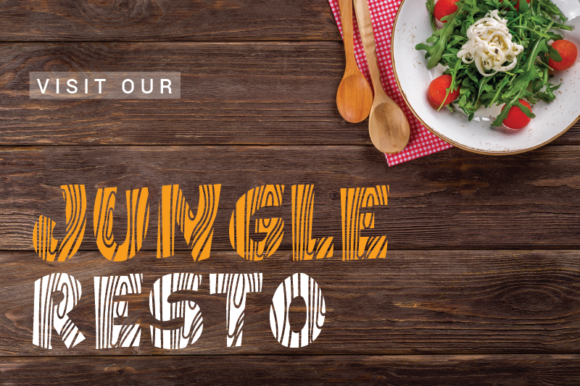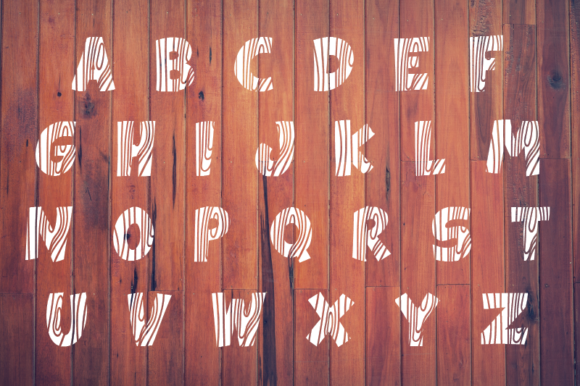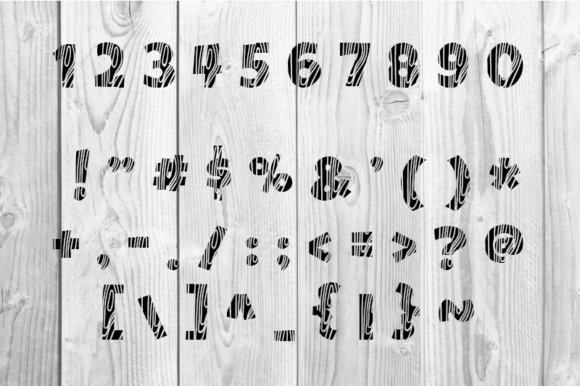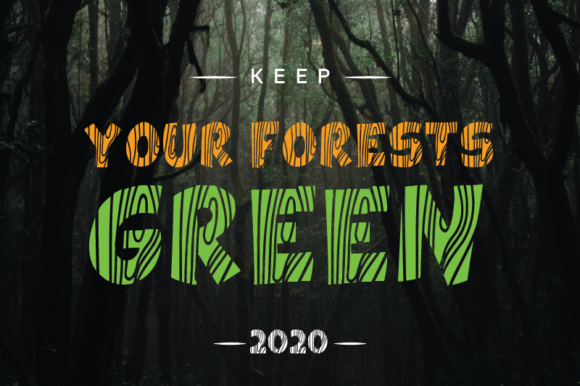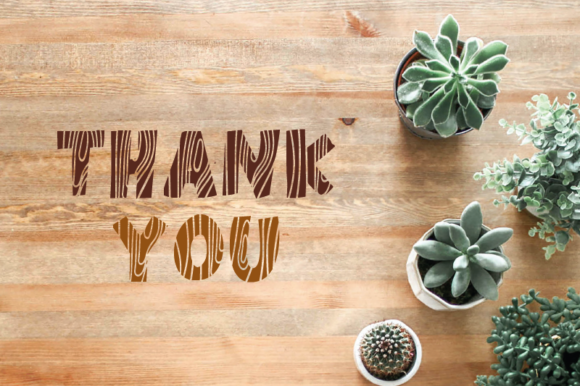
Discover the Charm of Forest Wood Font: Elevate Your Designs with a Touch of Nature
Are you tired of using the same old fonts in your designs? Look no further than Forest Wood Font, a unique and exquisite display font that’s sure to become your new favorite. With its perfect blend of classic dingbats influences and modern freshness, Forest Wood Font is the ideal choice for designers and crafters looking to add a touch of nature to their projects.
The Story Behind Forest Wood Font
Forest Wood Font is a masterfully designed display font that boasts a distinctive and playful look. Its creator has carefully crafted each letter and symbol to evoke the feeling of woodland and natural elements, making it perfect for designs that require a touch of whimsy and charm. Whether you’re working on a logo, branding materials, or craft projects, Forest Wood Font is sure to bring a smile to your face and inspire your creativity.
What Makes Forest Wood Font So Special?
So, what sets Forest Wood Font apart from other fonts out there? Here are just a few reasons why designers and crafters are falling in love with this beautiful font:
- Unique and Exquisite Design: Forest Wood Font features a one-of-a-kind design that’s both elegant and playful. Its intricate details and natural elements make it perfect for designs that require a touch of sophistication and whimsy.
- Classy Dingbats Influences: Forest Wood Font draws inspiration from traditional dingbats, but with a modern twist. This gives it a fresh and contemporary feel that’s perfect for designers looking to create unique and eye-catching designs.
- Contemporary and Fresh: Despite its classic influences, Forest Wood Font feels modern and fresh. Its clean lines and natural elements make it perfect for designs that require a touch of nature and sophistication.
- Playful Look: Forest Wood Font is designed to be fun and playful, making it perfect for designs that require a touch of whimsy and charm. Whether you’re working on a children’s project or a design that requires a lighthearted touch, Forest Wood Font is sure to deliver.
How to Use Forest Wood Font in Your Designs
Forest Wood Font is a versatile font that can be used in a wide range of designs, from logos and branding materials to craft projects and more. Here are just a few ideas to get you started:
- Logos and Branding Materials: Use Forest Wood Font to create unique and eye-catching logos and branding materials that showcase your brand’s personality and style.
- Craft Projects: Forest Wood Font is perfect for craft projects, such as scrapbooking, card making, and more. Its playful look and natural elements make it a great choice for designs that require a touch of whimsy and charm.
- Signs and Displays: Use Forest Wood Font to create eye-catching signs and displays that showcase your message or product. Its bold and playful design makes it perfect for designs that require attention-grabbing typography.
Tips and Tricks for Getting the Most Out of Forest Wood Font
Here are just a few tips and tricks for getting the most out of Forest Wood Font:
- Experiment with Different Sizes and Colors: Forest Wood Font looks great in a variety of sizes and colors. Experiment with different combinations to find the one that works best for your design.
- Pair with Other Fonts: Forest Wood Font pairs well with a variety of other fonts. Try pairing it with a clean and simple font to create a striking contrast.
- Use it to Add a Touch of Whimsy: Forest Wood Font is perfect for adding a touch of whimsy and charm to your designs. Use it to create eye-catching typography and add a playful touch to your projects.
| Font Name | Forest Wood Font |
| Author | Smart Studio |
Forest Wood Font is a unique and exquisite display font that’s sure to become your new favorite. With its perfect blend of classic dingbats influences and modern freshness, it’s the ideal choice for designers and crafters looking to add a touch of nature to their projects. Whether you’re working on a logo, branding materials, or craft projects, Forest Wood Font is sure to bring a smile to your face and inspire your creativity. So why wait? Download Forest Wood Font today and start creating designs that are truly one-of-a-kind!